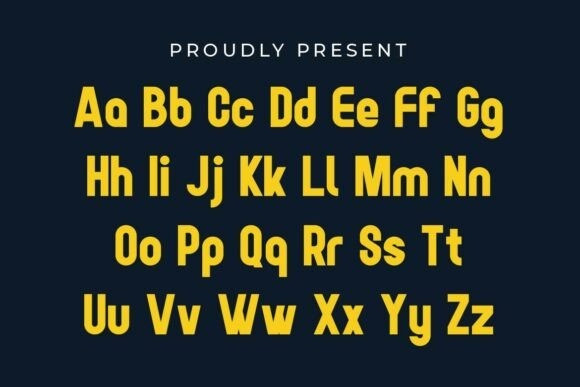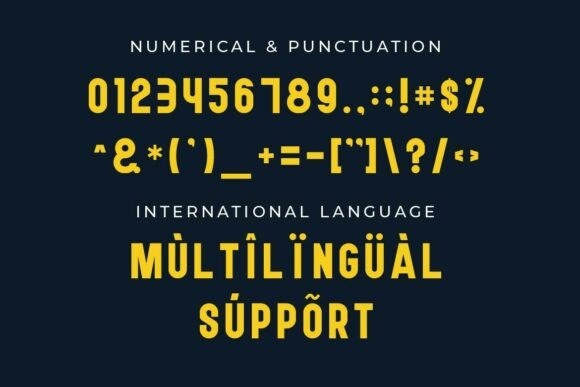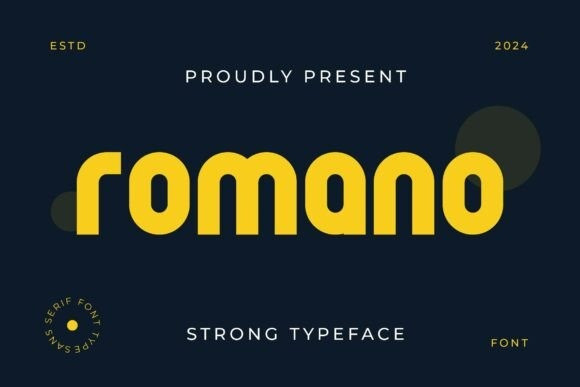
Romano Font
Romano Font is a bold and stylish display font crafted specifically for logos, headlines, and branding that demands attention. With sharp lines, high contrast, and refined letterforms, Romano blends classic sophistication with a modern edge — perfect for luxury brands, fashion labels, editorial titles, packaging, and high-end visual identities.